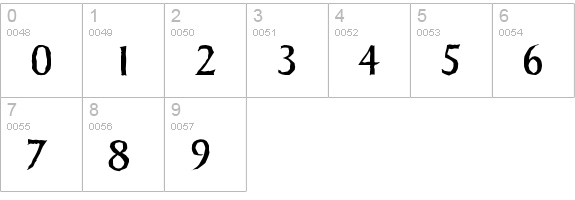
SigvarAntique-Regular Font Details
SigvarAntique-Regular is the standard, neutral variant in the SigvarAntique typeface family \xE2\x80\x94 well suited to general body text, paragraphs, and standard typographic work.
SigvarAntique-Regular is a timeless and elegant font that exudes sophistication and charm. Its classic serifs and graceful letterforms make it perfect for a wide range of applications, from formal invitations to vintage-inspired branding. This font strikes the perfect balance between tradition and modernity, making it versatile and suitable for both print and digital projects. What sets SigvarAntique-Regular apart is not just its beauty, but also the fact that it is available for free download at FontsMarket.com. Whether you are a designer looking for a new go-to font or simply want to add a touch of class to your projects, SigvarAntique-Regular is a fantastic choice that won't cost you a penny. Download it today and elevate your designs with this exquisite typeface.